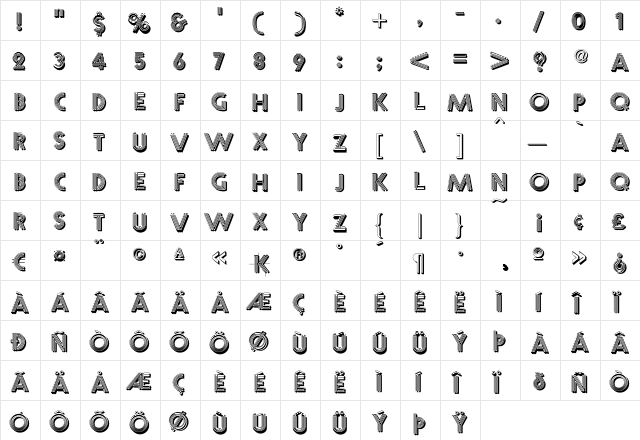
Multistrokes Regular
Design Context for Multistrokes Typeface
Multistrokes is a composed and adaptable typeface that performs quietly and consistently across a wide range of design contexts.